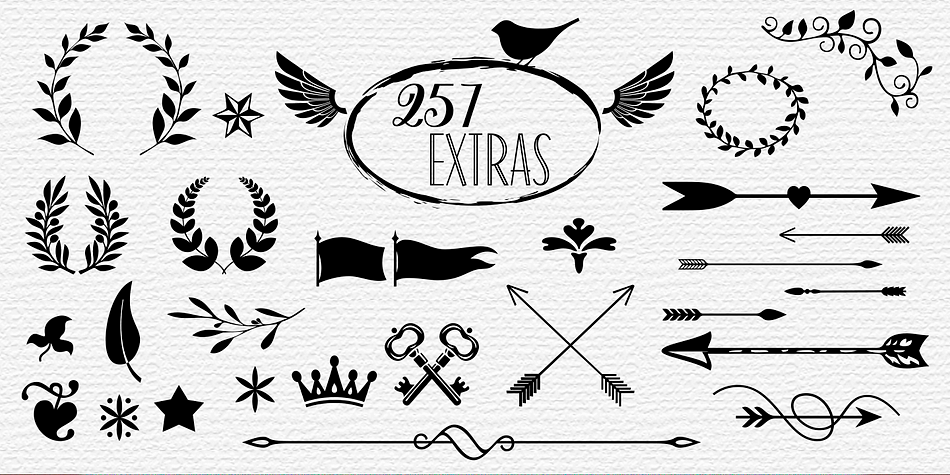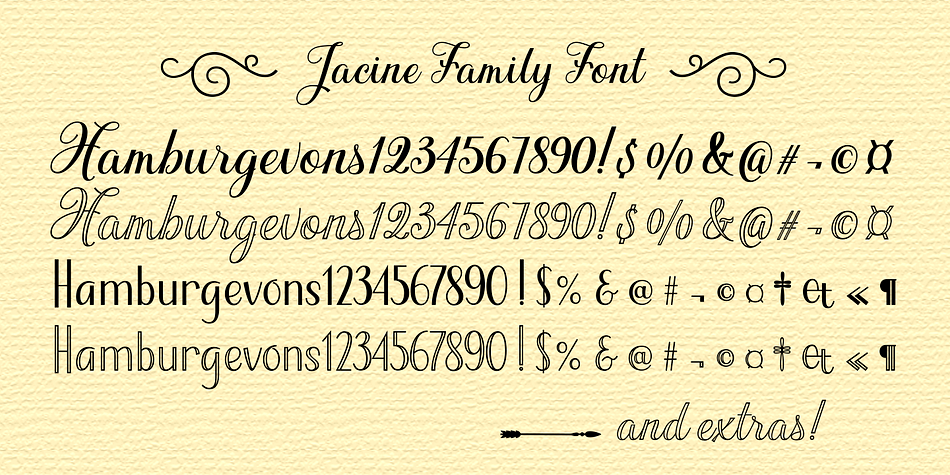
Jacine
Designed by Carine de Wandeleer, Jacine is a dingbat, hand drawn and script font family. This typeface has five styles and was published by Eurotypo.
The Jacine family includes four handwritten fonts. In addition it includes very useful extra elements.
Jacine Script and Jacine Script Inline are informal and youthful fonts with many stylistic variations, swashes and ligatures. Jacine Sans and Jacine Sans Inline add a little seriousness. Both of them are designed to play together but they also work great on their own. Jacine Ornaments has a lot of beautiful ornaments that work very well with the two styles of fonts. With all this, the Jacine font family will allow you to create elegant projects.
The Jacine family is created for any project from logos, magazines and book covers, children’s material, fashion, headlines, cards, posters, websites, packaging and, basically, anywhere you want.